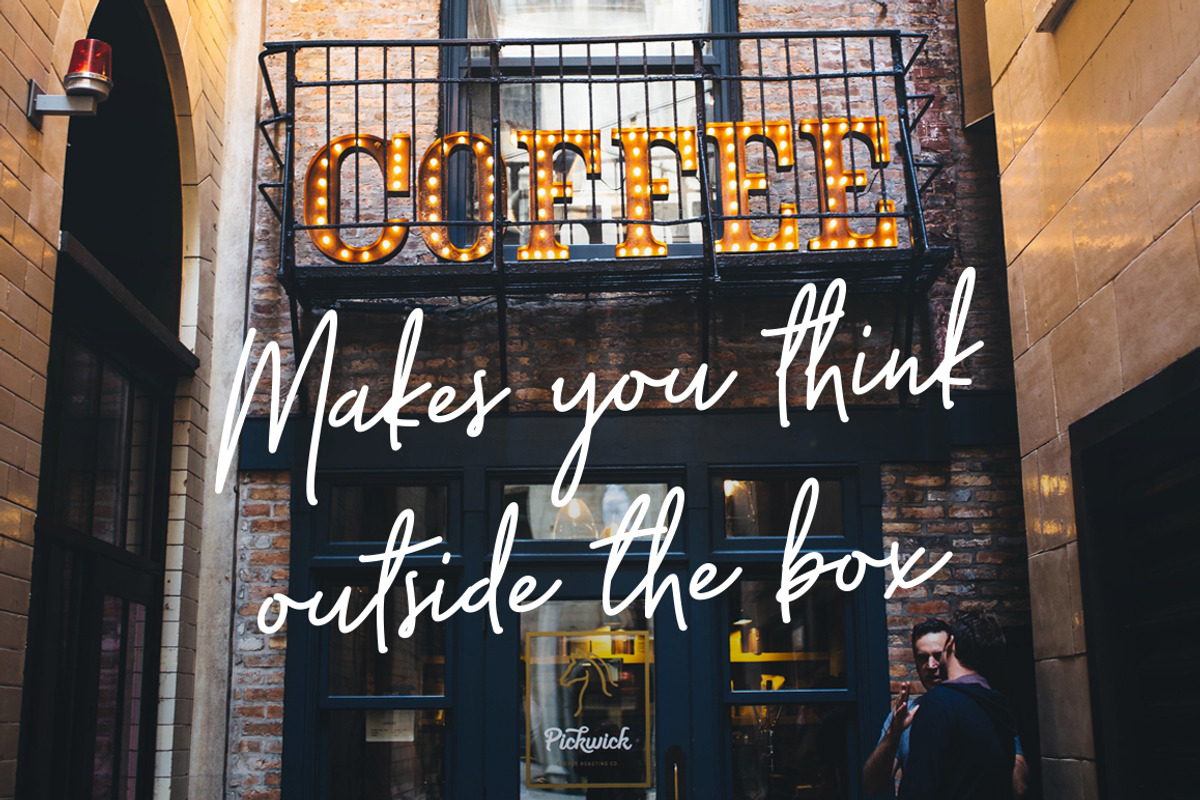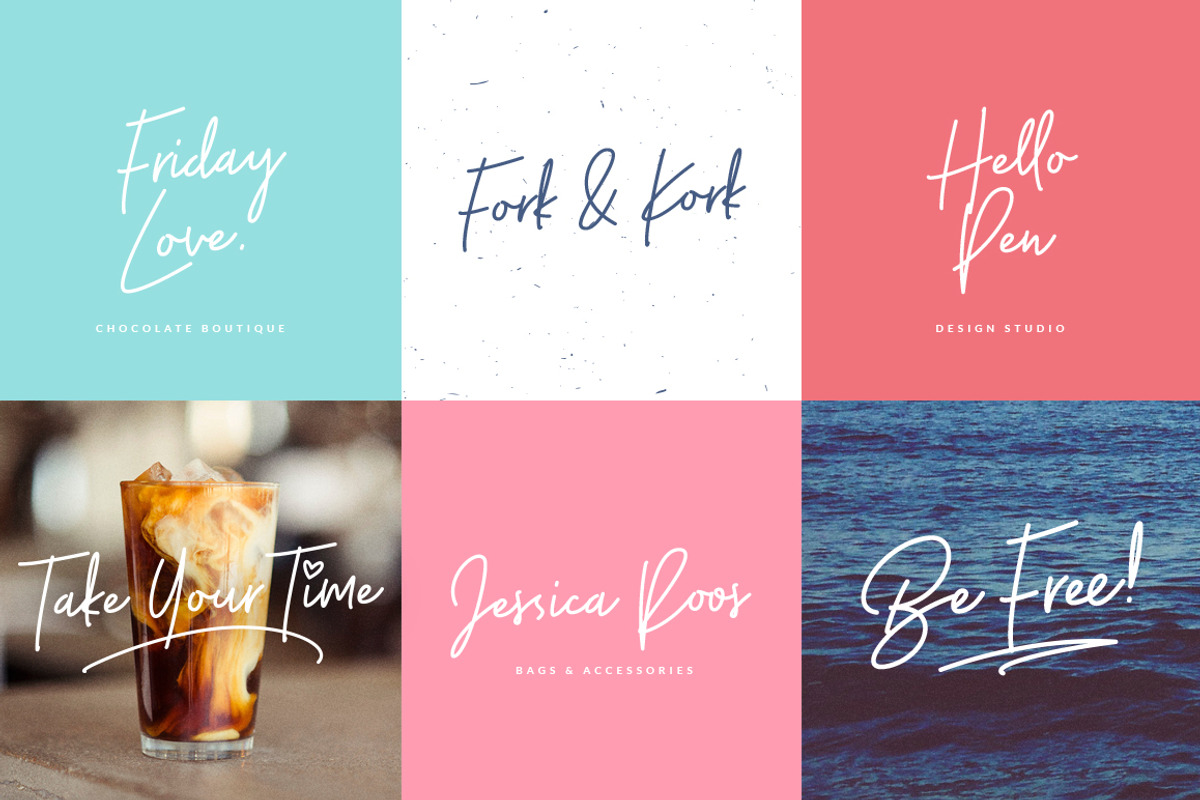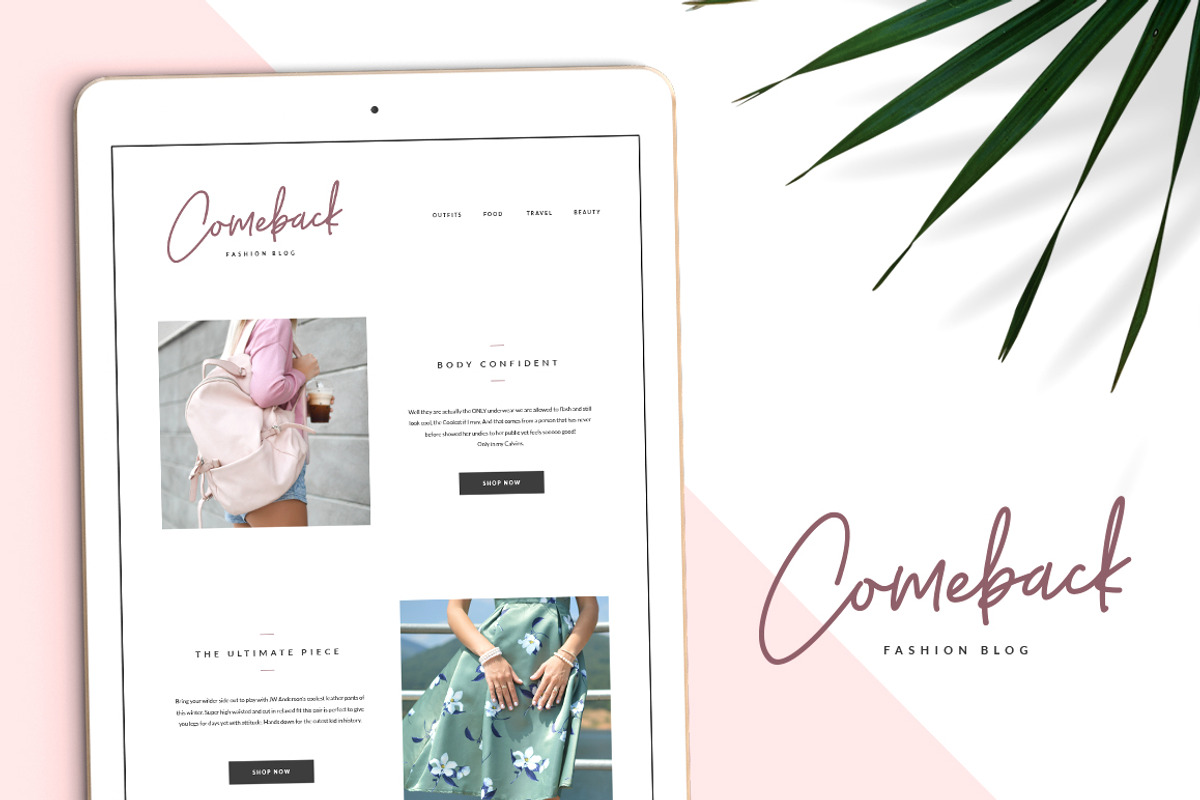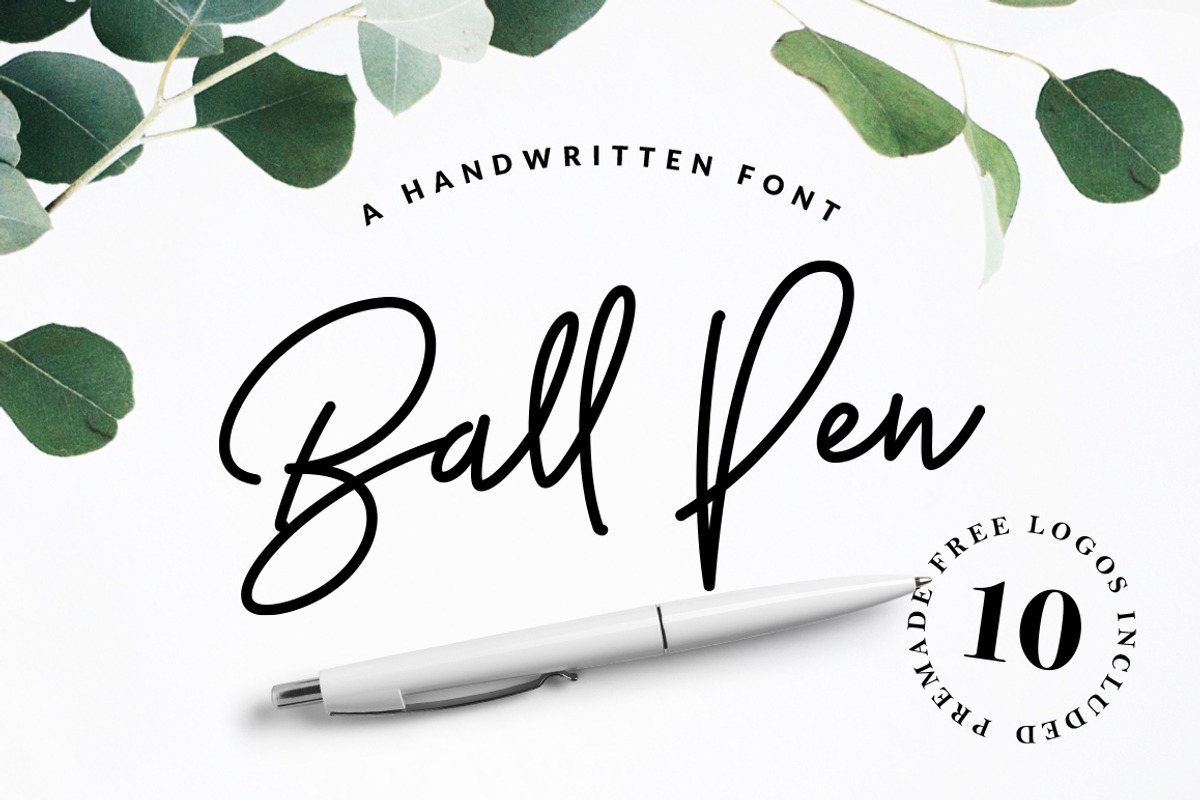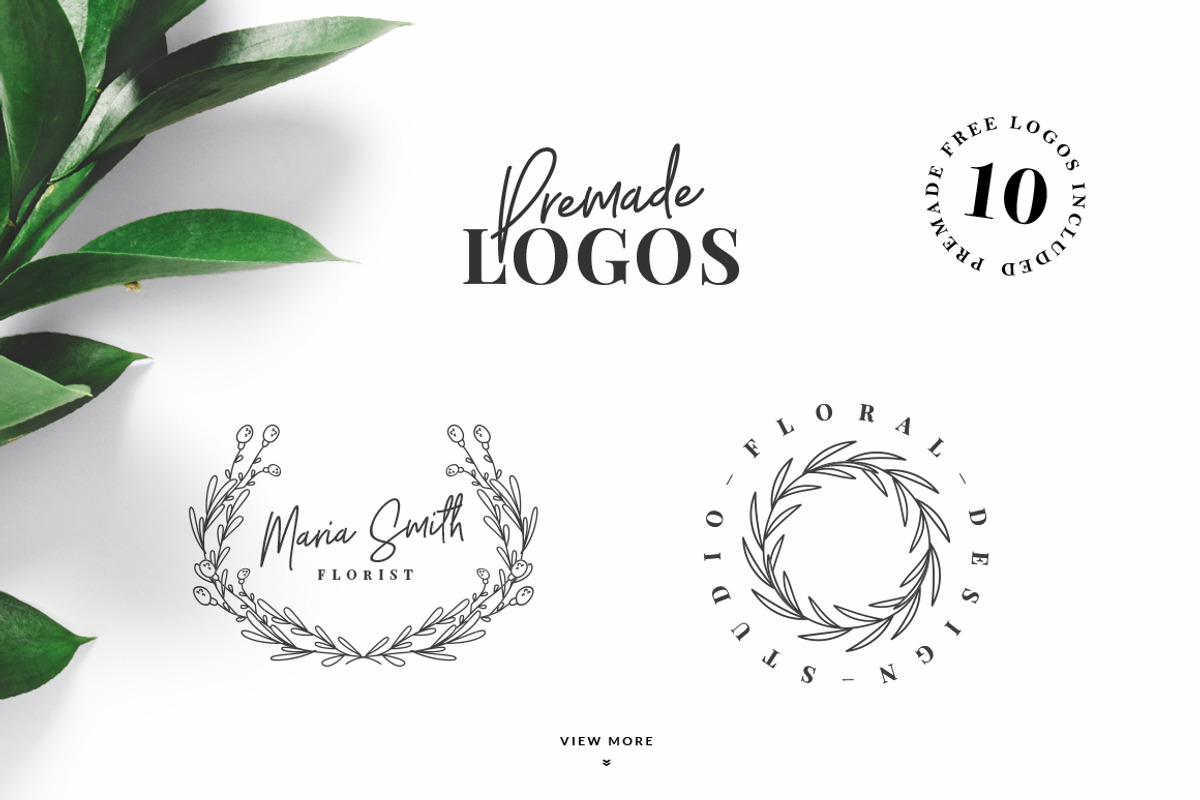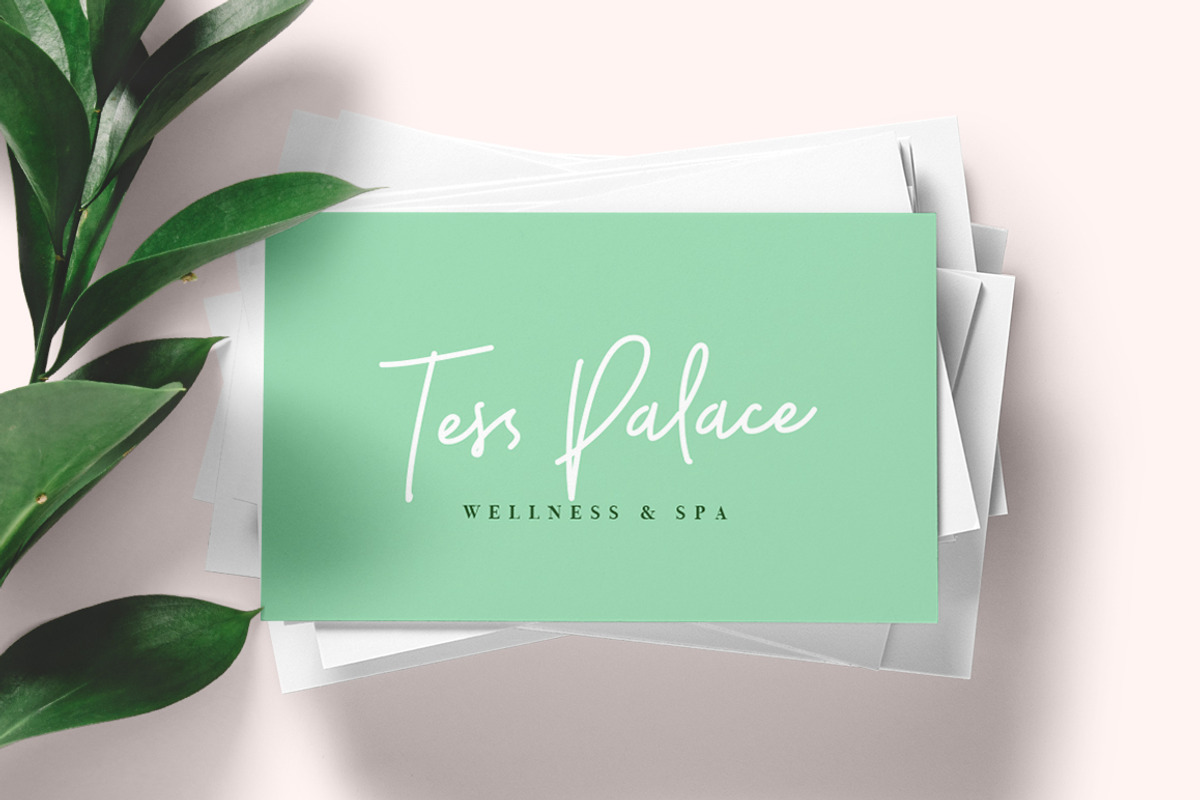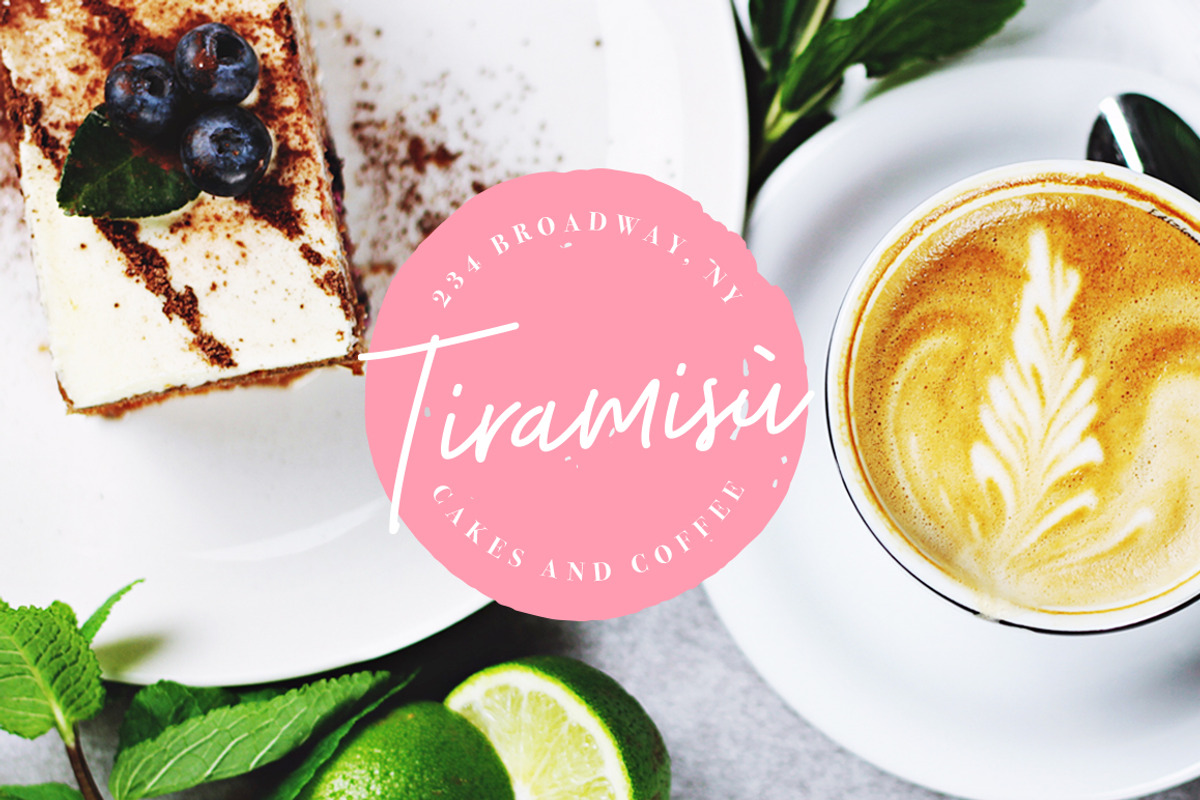
Ball Pen Handwritten Font
Ball Pen Handwritten Font by VladCristea is a font selected for branding, posters, packaging, typography.
- Ball Pen comes with upper and lowercase Basic Characters, Numbers, Marks and Punctuation.
- As a feature you have also the standard Ligature, Alternates and Swashes.
Why Ball Pen Handwritten Font is worth a look
Ball Pen Handwritten Font by VladCristea fits naturally into Branding, posters, packaging, typography.